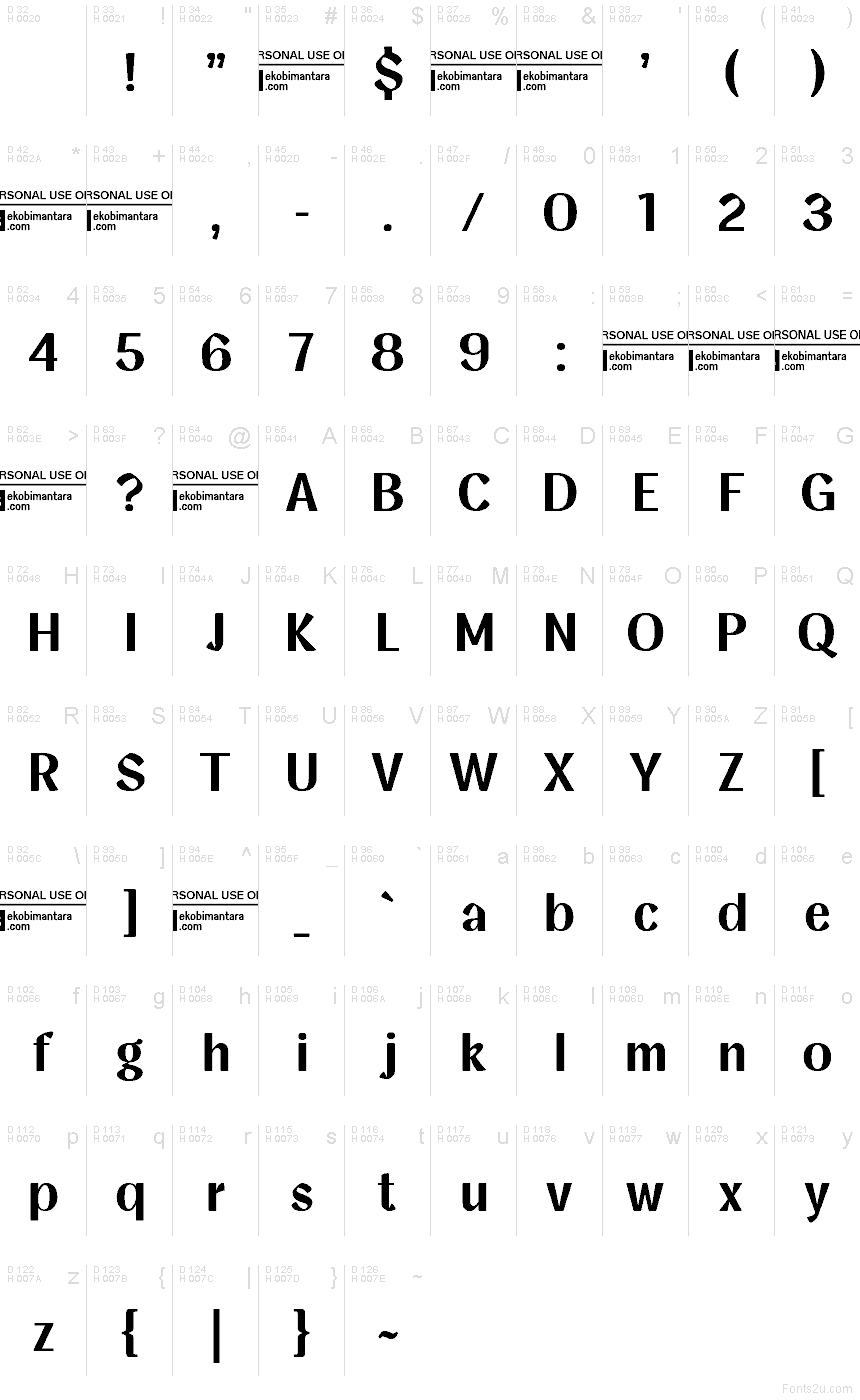
Homade Trial Extra Bold
Homade Extra Bold font by Eko Bimantara is a free high-contrast sans serif font. Part of the Homade family, it stands out with sculpted counters and razor-clean interior cuts that slice through the heavy strokes, creating a crisp, almost chiseled rhythm. The vertical stress and smooth curves give it a glossy, inky presence that reads bold from afar yet reveals refined detailing up close.
Using Homade Extra Bold, headlines snap to attention without shouting, making it a natural fit for fashion branding, beverage labels, editorial covers, posters, album art, social promos, and bold signage. This free font thrives large; add a touch of tracking at smaller sizes. For body copy, pair it with Homade Regular or a neutral grotesk to let the display weight do the talking.